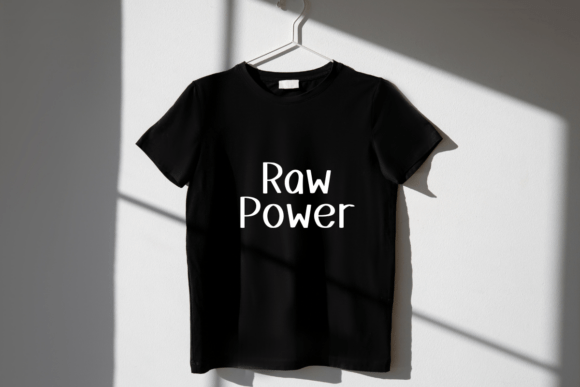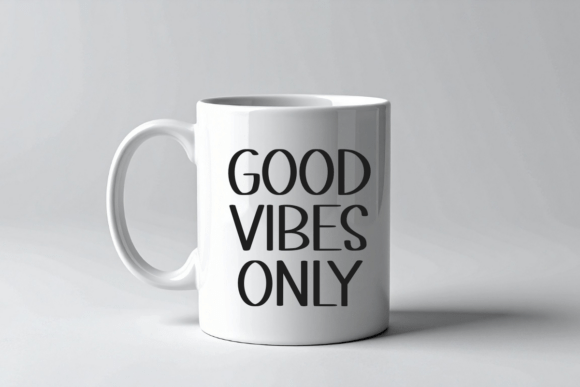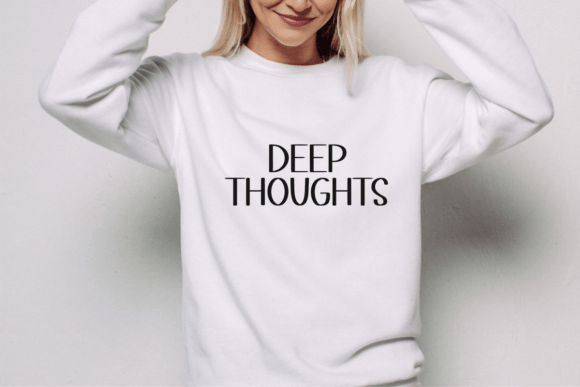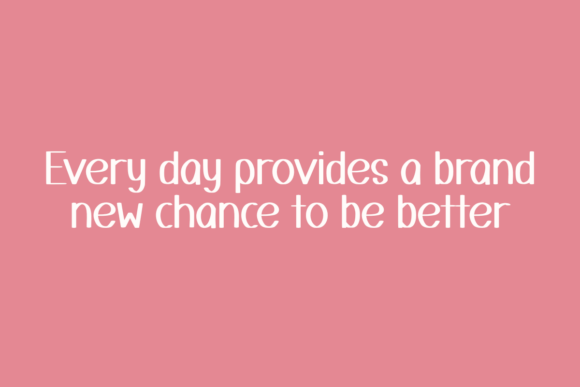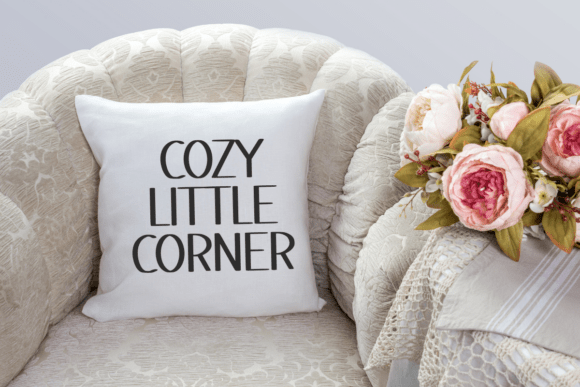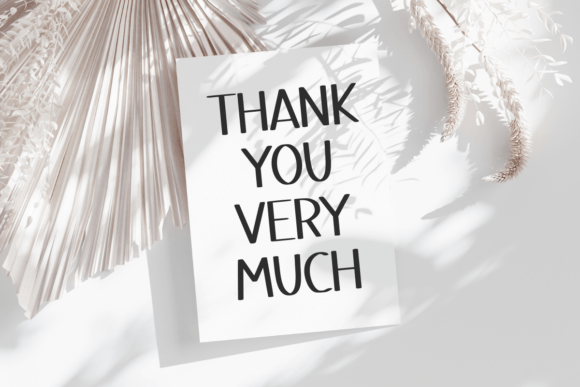
Radiate Positivity: Good Times – A Cute Handwriting Font to Spread Cheer
In the world of typography, fonts play a crucial role in conveying emotions and setting the tone for a brand or project. When it comes to evoking feelings of warmth, nostalgia, and happiness, the Good Times font is an excellent choice. This cute handwriting font is designed to prioritize warmth and legibility, making it perfect for lifestyle branding, promotional materials, and editorial layouts that require a friendly and approachable tone.
What Makes Good Times Font Special?
The Good Times font features slightly wider, rounded characters that give it a unique and playful stance. This distinctive design makes it stand out from other fonts and immediately conveys a sense of friendliness and approachability. The balanced weight of the font ensures that it remains legible, even at smaller sizes, making it versatile for various applications.
One of the key characteristics of the Good Times font is its organic feel. The font has a handcrafted look that makes it feel authentic and full of life. This is particularly beneficial for designers and crafters who want to add a personal touch to their projects. Whether you’re working on lifestyle branding, upbeat promotional materials, or playful editorial layouts, the Good Times font can help you achieve a warm and engaging tone.
Perfect for Various Projects
The Good Times font is incredibly versatile and can be used for a wide range of projects. Here are some ideas to get you started:
- Quotes: Add a touch of warmth and personality to your quotes with the Good Times font. Its friendly stance and rounded characters make it perfect for sharing inspirational and motivational quotes on social media or using them in graphic projects.
- Greeting Cards: Create personalized and heartfelt greeting cards for special occasions like birthdays, holidays, or weddings. The Good Times font will add a playful and affectionate touch to your cards.
- Kids’ Labels: Make labeling fun and engaging with the Good Times font. Use it to create colorful and playful labels for kids’ projects, folders, or storage containers.
- Coloring Pages: Add a touch of whimsy to your coloring pages with the Good Times font. Use it to create fun and interactive titles, headings, or text elements.
- Worksheets: Make learning more engaging with the Good Times font. Use it to create interactive and visually appealing worksheets for kids.
- Bullet Journals: Add a personal touch to your bullet journals with the Good Times font. Use it to create headings, titles, or inspirational quotes.
- Scrapbooks: Make your scrapbooks more memorable with the Good Times font. Use it to add captions, titles, or journaling to your scrapbook pages.
- Playful Graphic Projects: Use the Good Times font to add a playful touch to your graphic projects, such as posters, flyers, or social media graphics.
Why Choose Good Times Font?
There are several reasons why the Good Times font stands out from other fonts:
- Warmth and Legibility: The Good Times font prioritizes warmth and legibility, making it perfect for projects that require a friendly and approachable tone.
- Unique Design: The font’s slightly wider, rounded characters give it a unique and playful stance that sets it apart from other fonts.
- Balanced Weight: The font’s balanced weight ensures that it remains legible, even at smaller sizes.
- Organic Feel: The font has a handcrafted look that makes it feel authentic and full of life.
The Good Times font is an excellent choice for designers and crafters who want to add a touch of warmth and personality to their projects. Its unique design, balanced weight, and organic feel make it perfect for lifestyle branding, promotional materials, and editorial layouts. With its versatility and wide range of applications, the Good Times font is sure to become a favorite in your font collection.
So why not give the Good Times font a try? Radiate positivity and spread cheer with this cute handwriting font that’s sure to bring a smile to everyone’s face.